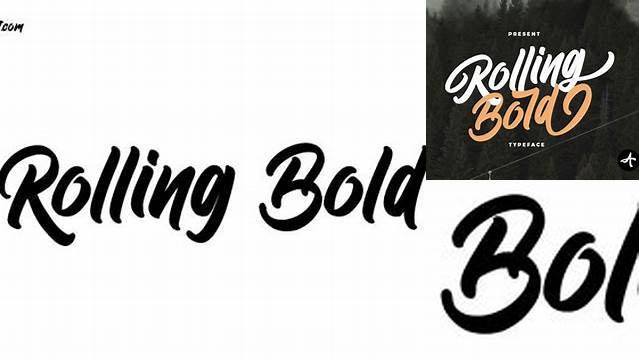
Hey guys! Ever been on the hunt for that perfect font to make your project pop? Well, today's your lucky day! We're diving deep into the world of Rolling Bold, a font that’s not only stylish but also free for personal use. Let’s get rolling (pun intended!) and see what makes this font so special and how you can snag it for your next creative endeavor.
What is Rolling Bold Font?
Rolling Bold is a typeface characterized by its strong, bold strokes and a distinctive, almost playful design. It's the kind of font that grabs attention without being too over-the-top. Think of it as the friendly giant of the font world – approachable, yet commanding. Its robust structure makes it incredibly versatile, suitable for everything from eye-catching headlines to branding materials that need to make a statement. Whether you're designing a poster, crafting a logo, or even just sprucing up a presentation, Rolling Bold adds a touch of personality and impact. The beauty of Rolling Bold lies in its ability to balance strength and readability. Each character is meticulously crafted to ensure clarity, even at smaller sizes. This makes it a practical choice for a wide range of applications, both in print and digital media. The font's unique charm also stems from its subtle curves and rounded edges, which soften its overall appearance and give it a friendly, inviting feel. So, if you're looking for a font that exudes confidence and creativity, Rolling Bold might just be the perfect choice for your next project. The design principles behind Rolling Bold focus on creating a harmonious balance between boldness and elegance. The font's designers meticulously considered every detail, from the weight of the strokes to the spacing between characters, to ensure a cohesive and visually appealing aesthetic. This attention to detail is what sets Rolling Bold apart from other bold fonts, making it a truly exceptional typeface that stands out in any design. In summary, Rolling Bold is more than just a font; it's a versatile design tool that can elevate your projects and help you make a lasting impression.
Why Choose Rolling Bold for Your Projects?
Choosing the right font can be a game-changer, and Rolling Bold offers a unique blend of style and functionality. First off, its bold nature ensures that your message gets noticed. Imagine using it for a poster – the text will leap off the page! But it's not just about being loud; Rolling Bold has a certain elegance that prevents it from being overwhelming. It's like that friend who's always confident but never obnoxious. Plus, the fact that it’s free for personal use makes it an incredibly accessible option for hobbyists, students, and anyone looking to add a professional touch to their personal projects without breaking the bank. Think about using it for your resume header to make a strong first impression, or for creating eye-catching social media graphics. Rolling Bold’s versatility extends beyond aesthetics. Its clear, legible design ensures that your message is easily understood, whether it's displayed on a small screen or printed on a large banner. This is crucial for maintaining a consistent brand image across different platforms. Moreover, the font’s unique character adds personality to your designs, helping you stand out from the crowd and create a memorable visual identity. So, if you’re looking for a font that combines impact, clarity, and affordability, Rolling Bold is definitely worth considering for your next project. The impact of choosing the right font cannot be overstated. It's a critical element of visual communication that can significantly influence how your message is perceived. Rolling Bold offers a unique opportunity to enhance your designs with a typeface that is both striking and easy to read. Its versatility and accessibility make it an ideal choice for a wide range of creative endeavors.
Tips for Maximizing the Impact of Rolling Bold Font
Alternatives to Rolling Bold Font (If You Need Variety)
While Rolling Bold is fantastic, it's always good to have options, right? If you're looking for similar fonts that offer a slightly different vibe, consider fonts like Montserrat, Bebas Neue, or even Lato. These fonts share a similar boldness and clarity but have their own unique characteristics. Montserrat, for example, has a more geometric feel, while Bebas Neue is known for its tall, condensed design. Lato is a more rounded and friendly option. These alternatives can be useful if you need to create a more diverse and dynamic design. They can also be helpful if you're looking for a font that is more suitable for a particular application. For example, Montserrat might be a better choice for a website design, while Bebas Neue might be more appropriate for a poster or headline. When choosing an alternative to Rolling Bold, it's important to consider the overall tone and message of your design. Do you want to create a sense of authority and confidence, or do you want to convey a more friendly and approachable vibe? The font you choose should reflect these qualities. It's also important to consider the legibility of the font. While a font may look great at a large size, it may not be as readable at a smaller size. Make sure to choose a font that is easy to read in all of the applications you plan to use it for. Finally, don't be afraid to experiment with different fonts and combinations. The best way to find the perfect font for your project is to try out a few different options and see what works best. You might be surprised at what you discover!
Common Mistakes to Avoid When Using Bold Fonts Like Rolling Bold
Using bold fonts like Rolling Bold can be tricky. One common mistake is overusing it. If everything is bold, nothing stands out! Use it sparingly for emphasis. Another mistake is pairing it with other strong fonts. This can create a cluttered and overwhelming look. Instead, try pairing it with a simpler, more neutral font. Also, be careful with the size. Making it too large can make your design look amateurish, while making it too small can make it difficult to read. Finding the right balance is key. Another common mistake is ignoring the context in which you're using the font. Is it for a formal document or a casual social media post? The font should be appropriate for the occasion. Finally, don't forget to consider the legibility of the font. While a bold font can be great for headlines, it may not be the best choice for body text. In these cases, consider using a more readable font for the body text and reserving Rolling Bold for headings and subheadings. Avoiding these common mistakes can help you to use bold fonts like Rolling Bold more effectively and create stunning designs that will impress your audience.
The Psychology of Bold Fonts: Why They Work
Why do bold fonts like Rolling Bold work so well? It's all about psychology! Bold fonts grab our attention and convey a sense of importance and authority. They signal to the reader that the text is significant and should be noticed. This is why they're often used for headlines, titles, and call-to-actions. But it's not just about grabbing attention. Bold fonts also create a sense of confidence and trustworthiness. They suggest that the message is clear, direct, and authoritative. This can be particularly effective in marketing and advertising, where it's important to build trust with your audience. However, it's important to use bold fonts strategically. Overusing them can have the opposite effect, making your design look cluttered and overwhelming. The key is to use them sparingly and purposefully to highlight key messages and create a sense of visual hierarchy. When used correctly, bold fonts can be a powerful tool for communication, helping you to grab attention, convey authority, and build trust with your audience.
The world of typography is constantly evolving, and there are many exciting trends on the horizon. One trend is the increasing popularity of variable fonts, which allow designers to customize the weight, width, and other characteristics of a font. Another trend is the use of AI and machine learning to create new and innovative font designs. AI can be used to analyze existing fonts and to generate new fonts that are based on the characteristics of those fonts. A third trend is the increasing use of 3D typography, which allows designers to create fonts that have depth and dimension. 3D typography can be used to create visually stunning designs that are sure to grab attention. A fourth trend is the increasing focus on accessibility in font design. Designers are becoming more aware of the needs of users with disabilities, and they are creating fonts that are more readable and usable for everyone. Finally, the rise of personalized typography, where fonts are tailored to individual users' preferences and needs, enhancing engagement and creating unique brand experiences. By staying up-to-date on these future trends, you can ensure that your font designs are innovative and cutting-edge.